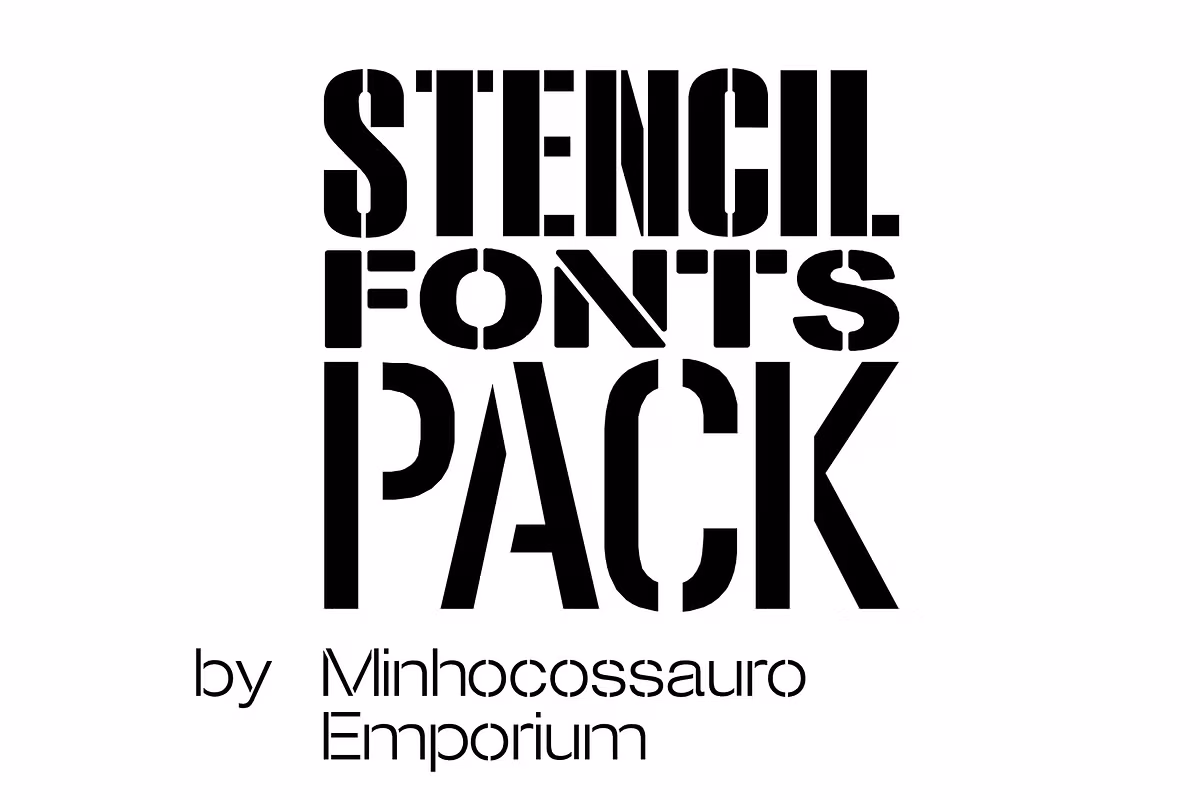
Make a bold statement with Stencil Fonts Pack Free Download — a collection of powerful, industrial-inspired fonts designed to stand out. Perfect for military-themed designs, urban branding, street art, packaging, logo creation, posters, and any project that demands attention, these fonts bring a strong, commanding presence to your typography.
The Stencil Fonts Pack combines clear letterforms with cutting-edge design, giving your text a unique edge. Whether you’re designing for products, events, or brand campaigns, these fonts provide versatility and strength. The pack includes multiple font styles, uppercase and lowercase letters, punctuation, numerals, and multilingual support — making it a perfect fit for a variety of creative projects.